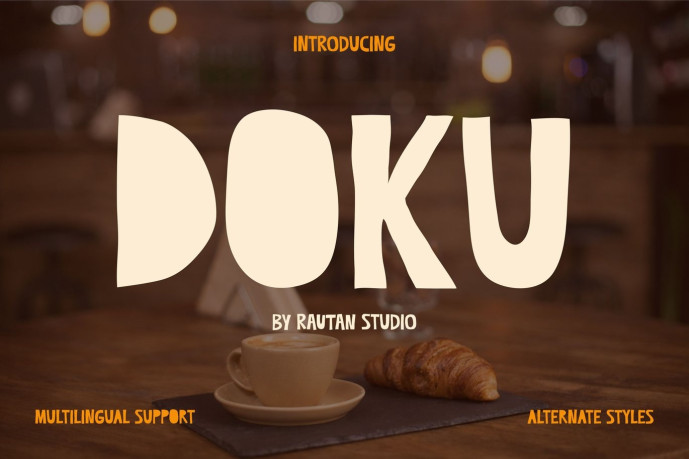
Doku Font
Designer: rautanstudio
Doku Font is a bold expressive display typeface designed for café branding and food-focused visuals, combining soft curves, chunky proportions, and low-to-medium contrast to create warm, approachable letterforms that feel handcrafted yet structured. Its vibe is friendly, bold, and inviting—perfect for cafés, coffee brands, restaurants, and lifestyle businesses. The rounded structure and slightly playful geometry give DOKU strong visibility in real-world applications like menus, packaging, and signage, while its multilingual support across 67 languages ​​makes it ready for global brands and international markets.
Built to stand out where personality matters most, DOKU shines in branding, posters, menus, packaging, editorial highlights, and social media visuals. Its expressive tone helps businesses feel welcoming and memorable—ideal for café logos, daily menu boards, promotional campaigns, and takeaway packaging. DOKU connects emotionally by making brands feel warm, human, and instantly recognizable, even in fast-paced environments where clarity and charm are essential.